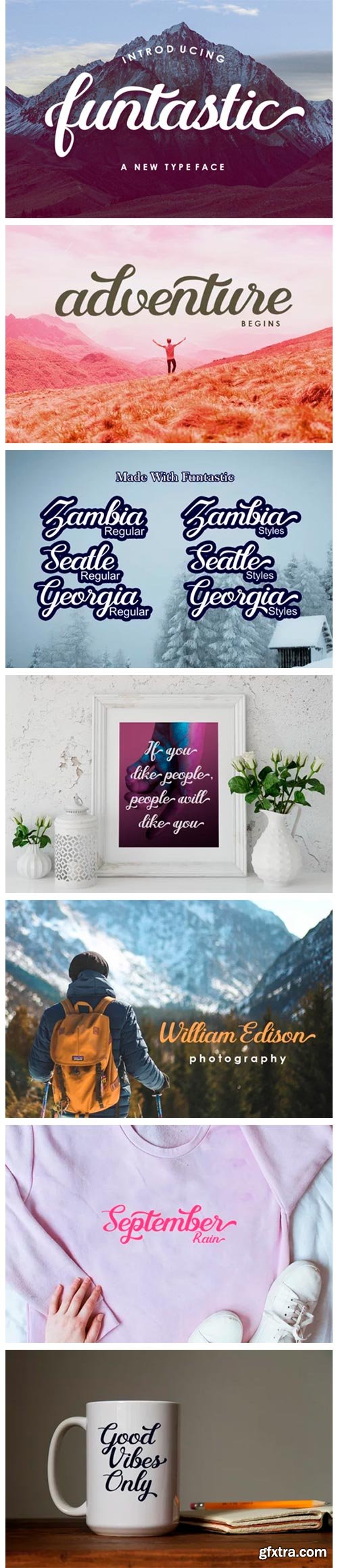
Funtastic Script Font
Funtastic Script is a highly legible Script typeface. Get touch of a bold, classic and fun Vintage Script font, Funtastic comes with opentype features with stylistic alternates. Funtastic can be used for various purposes such as posters, t-shirt, signage, logos, news, badges etc.